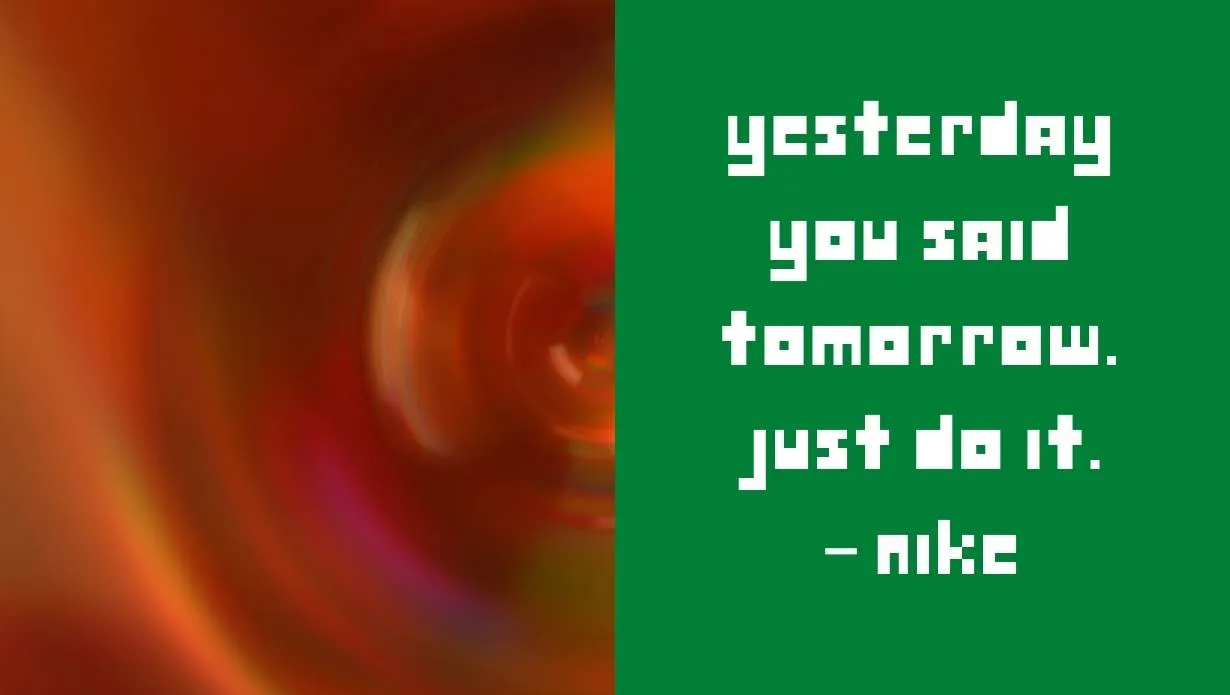
Here, we deliver a smart typeface known as Deltarune Font. This typeface belongs to the Display family and was created by Retro Gaming. This font is available in two styles, Regular and Italic. This great font has a remarkable retro-futuristic design that will give your text an authentic look.
Deltarune Font Family